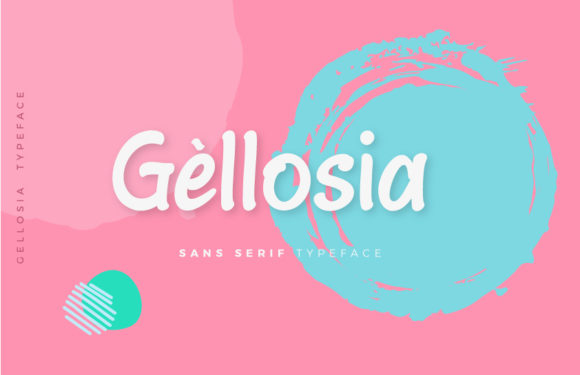
Behold Gellosia font, a playful and charming sans serif font that will infuse your designs with a touch of whimsy and delight. Inspired by the joy of handwritten notes and the beauty of flowing ink, Gellosia's curves and strokes dance across the page, creating an irresistible sense of playfulness. With its playful and casual nature, Gellosia is like receiving a warm hug from a close friend, enveloping your words in a cozy and inviting atmosphere.
Unleash your creativity with Gellosia, a font that is as versatile as it is enchanting. Whether you're crafting logos that burst with personality, designing websites that exude warmth, or creating social media posts that captivate your audience, Gellosia will elevate your designs to new heights. Its multi-faceted nature makes it perfect for a wide range of projects, from cheerful invitations to whimsical branding materials.
Gellosia's beauty lies in its simplicity, its ability to communicate messages with clarity and charm. Its clean lines and open letterforms ensure readability, even in small sizes, making it an excellent choice for both print and digital applications. Whether you're designing for a billboard or a mobile app, Gellosia will ensure your message shines through with impeccable clarity.
With Gellosia, you'll discover a font that is more than just a collection of letters; it's an expression of your unique personality and creativity. Its versatility empowers you to craft designs that resonate with your audience, leaving a lasting impression that lingers in their minds. Embrace the joyful spirit of Gellosia and let your imagination soar as you create designs that capture hearts and ignite smiles.